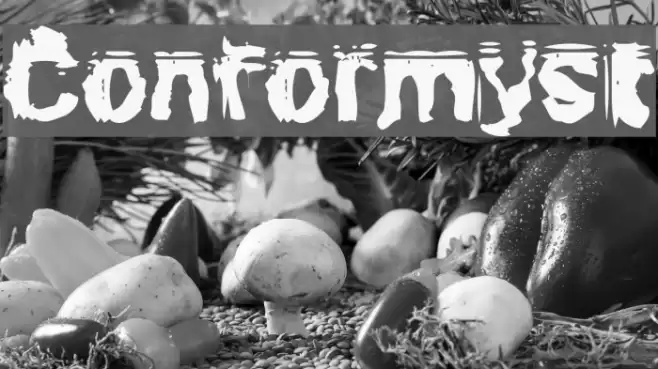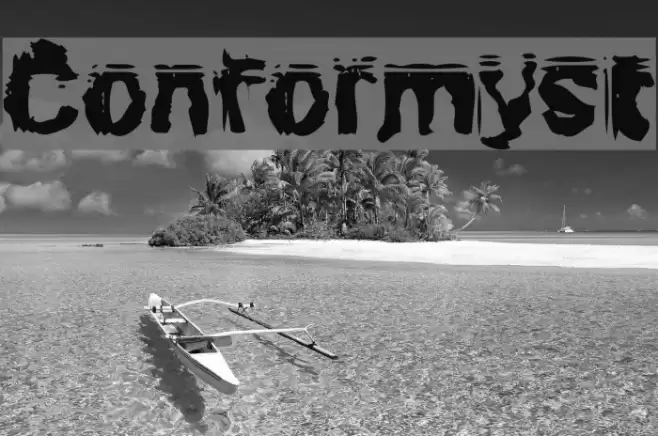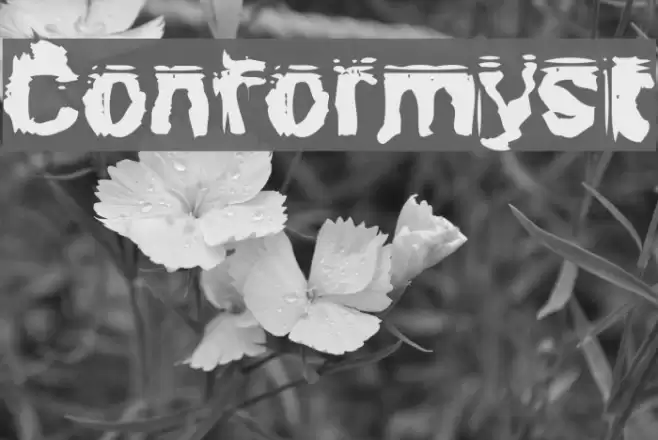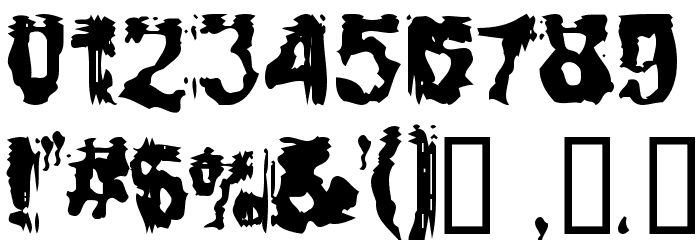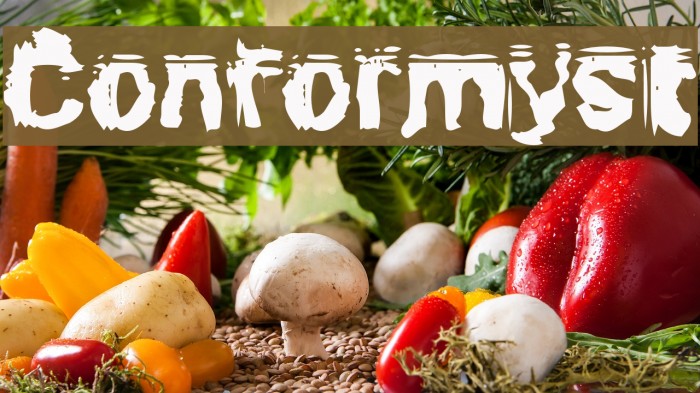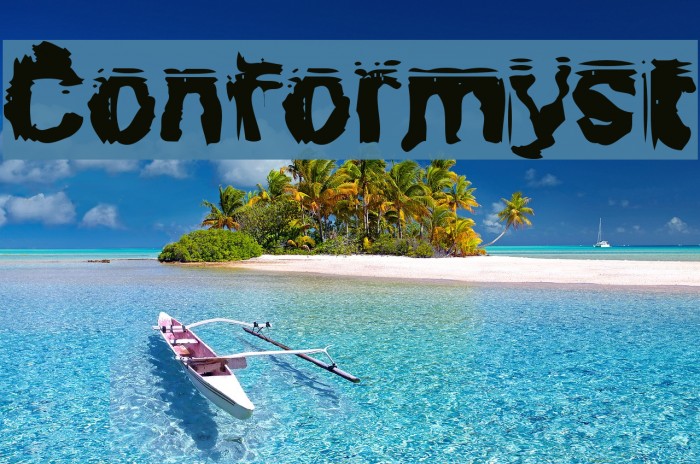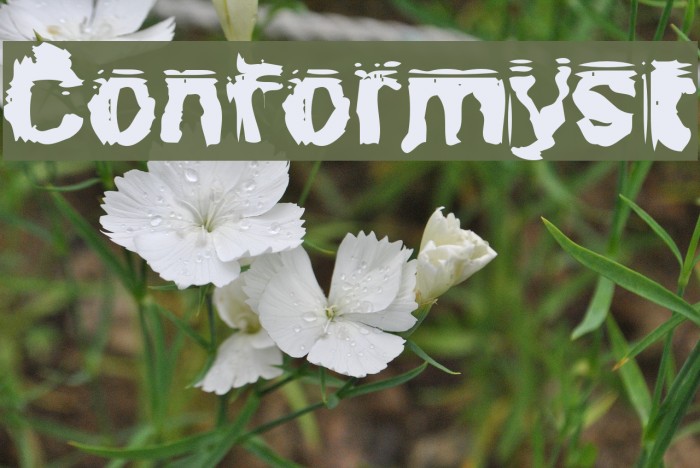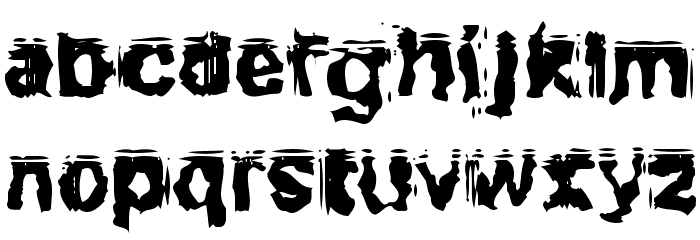
Conformyst Font
Conformyst Description
This font features a bold, distressed style with a grungy, textured appearance. The characters are irregular and appear as if they have been eroded or splattered with ink, giving them a chaotic yet artistic look. The uppercase and lowercase letters maintain a consistent style, with jagged edges and uneven strokes that create a sense of movement and energy. Numbers and special characters follow the same design, ensuring a cohesive appearance across all elements. This font's unique aesthetic makes it stand out, ideal for projects that require a bold statement.
A bold, distressed font with a grungy, textured appearance from Quirky fonts.
- Proposed Projects: Ideal for album covers, posters, urban-themed designs, and edgy branding projects.
- Overall Style: Grunge, Artistic